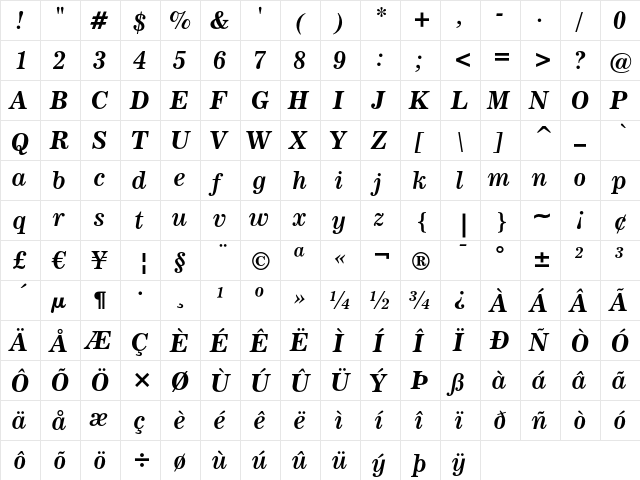
News 705 Bold Italic Font Preview
News 705 Bold Italic
News 705 Bold Italic Font Details
Design Context for News 705 Typeface
News 705 is a composed and adaptable typeface that performs quietly and consistently across a wide range of design contexts. Its italic angle brings a sense of urgency and motion to the letterforms. Its bold stroke weight gives it real presence on the page.
Pro Tip: Try News 705 for annotation and caption copy alongside an upright companion — the contrast in angle creates a dynamic but ordered typographic system.